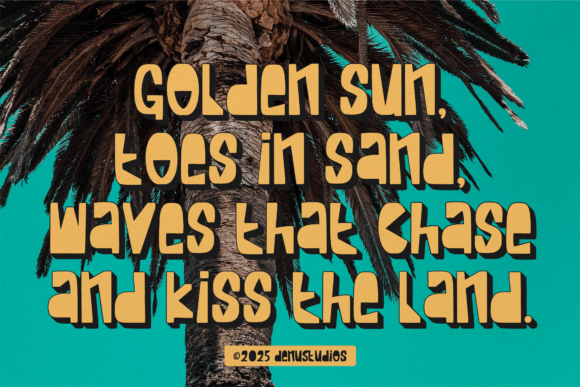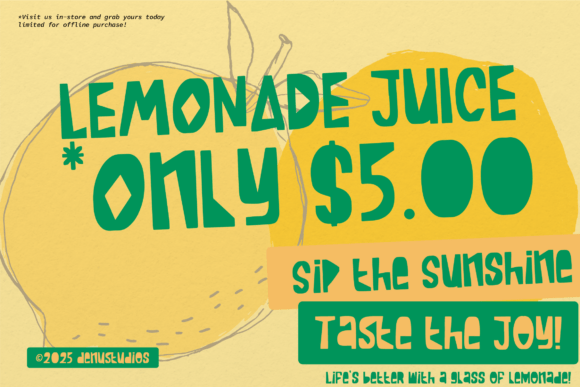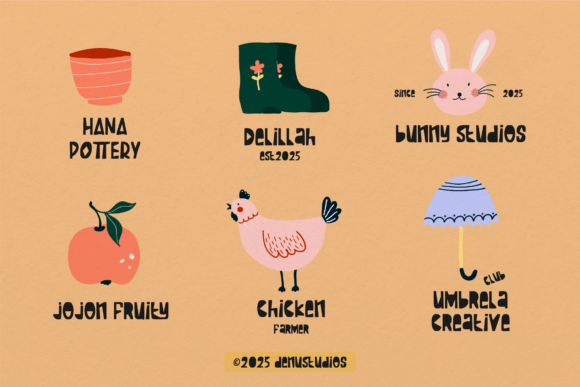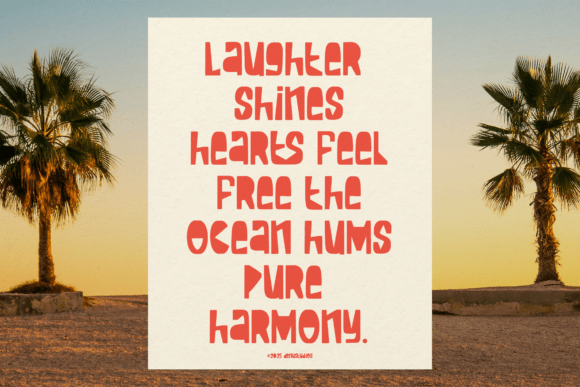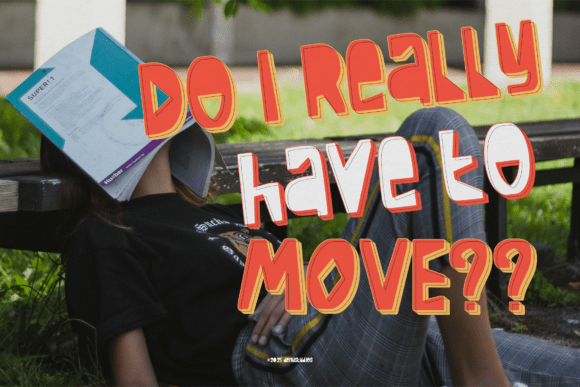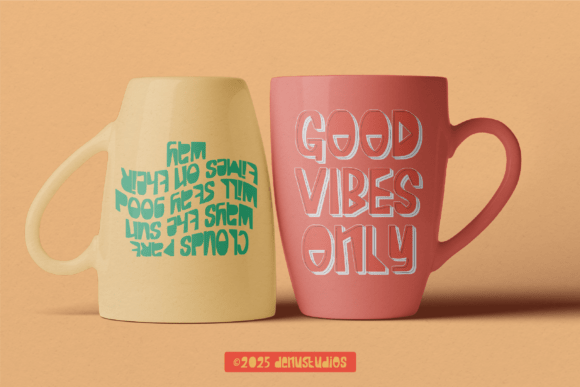
Introduction to Jerycho Chesiko Font
Jerycho Chesiko is a playful font, suitable for any projects such as: logos, branding projects, homeware designs, product packaging, mugs, quotes, posters, shopping bags, t-shirts, book covers, name card, invitation cards, greeting cards, label, photography, watermark, special events, and all your other lovely projects that need a Playful Font taste.
Key Features of Jerycho Chesiko Font